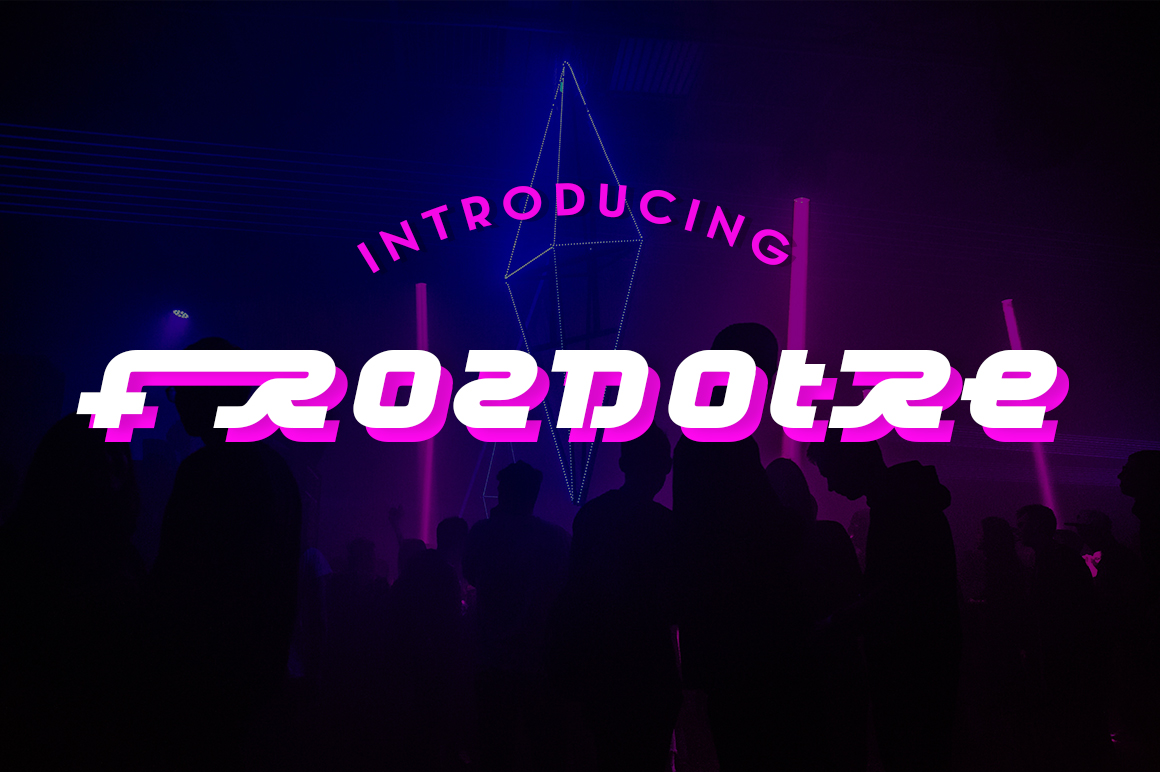
HomePersonal Use FreeFrozdotre Personal Use Free Frozdotre FacebookTwitterPinterestWhatsApp 1 of 1 About Frozdotre Font Frozdotre is a wide, mid 1990’s style methodological display font. Give your designs a nostalgic techno vibe with this free font from Typodermic. DOWNLOAD NOW People also explored Flower Pattern Font Nueve Bold Font Sweet Sugar Font Battom Creep Font Ern Font Byrdens Omarta Font Nusantyra Cantiva Font Cyber Tech Font 162 0 TagsFrozdotre Font Previous articleKraitNext articlePo Beef LEAVE A REPLY Cancel reply Comment: Please enter your comment! Name:* Please enter your name here Email:* You have entered an incorrect email address! Please enter your email address here Website: Save my name, email, and website in this browser for the next time I comment. Personal Use Free Shelly Personal Use Free Read more about this font Hello Sarrah Personal Use Free Read more about this font Lost Treasure Personal Use Free Read more about this font Helsinki Personal Use Free Read more about this font BLOG Where to Buy American Fonts Online in 2024 Where to Buy American Fonts Online: The Ultimate Guide for 2024 Looking for the perfect American font to elevate your design projects? You're in the... Best Fonts for YouTube Videos: Make Your Thumbnails Stand Out Top 7 Google Fonts Alternatives for Faster and Privacy-Friendly Web Design (2025) Free vs Paid Fonts: Why Investing in Premium Fonts Is Worth It